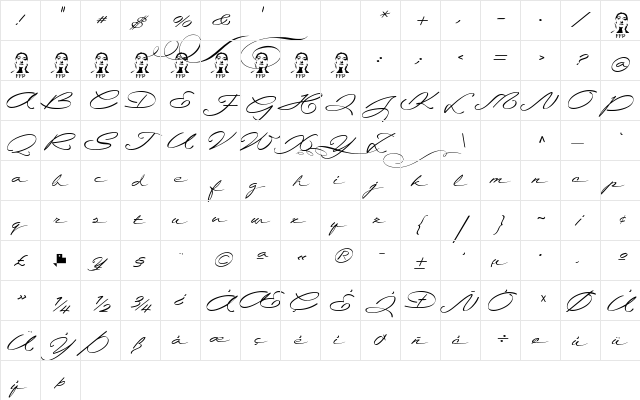
La Sonnambula ffp
| Foundry | deFharo |
| Designer | deFharo |
Design Context for La Sonnambula Typeface
La Sonnambula is a composed and adaptable typeface that performs quietly and consistently across a wide range of design contexts.